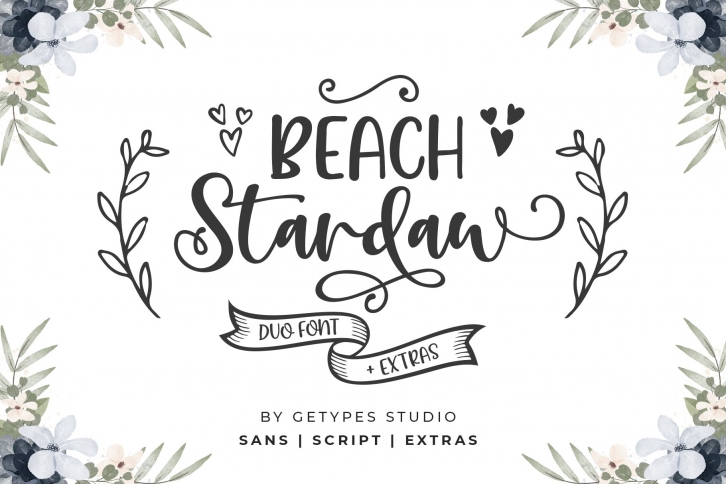
Beach Stardaw Duo With Extras FONT Download
Beach Stardaw Duo With Extras Font Download
Beach Stardaw Duo With Extras is a gorgeous font that was realeased on September 11, 2021. The font can be used in many style contexts and design environments. Perfect for invitations, magazines, websites, logos, and more! It was designed by Getypes Studio and the file size is 20.30 MB. Thanks for checking out this font!